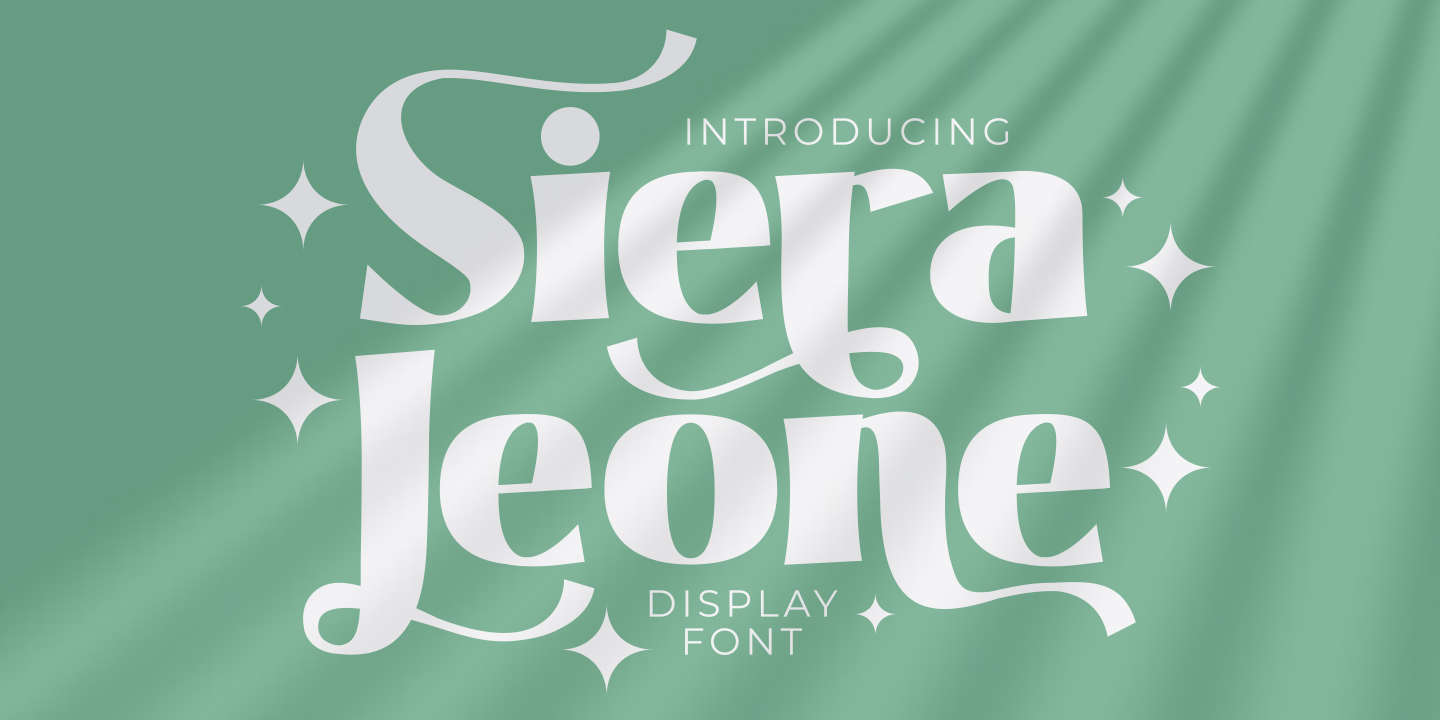
Siera Leone Font is excellent for African cultural celebrations, heritage tourism marketing, traditional craft promotions, cultural diversity campaigns, authentic African cuisine branding, community development communications, cultural exchange programs, African art exhibitions, diaspora community events, and multicultural festival graphics.
What makes Siera Leone Font exciting is its African cultural authenticity that perfectly captures the vibrant heritage and community spirit found in West African traditions and cultural celebrations. This typeface features distinctive letterforms with African-inspired proportions and cultural details that evoke the rich storytelling traditions and communal strength of African heritage. The font's vibrant personality and cultural authenticity make it ideal for cultural brands seeking to convey heritage pride, community unity, and the rich traditions that come from authentic African cultural expression and diaspora community connections.
Siera Leone Font family includes vibrant weight variations and cultural alternatives that enhance its African appeal while providing design flexibility for cultural and community applications. The font features cultural ligatures, African-themed ornaments, and heritage character variations that create authentic African atmosphere for cultural and community branding.
Cultural organizations and heritage community groups consistently choose Siera Leone Font Free Download for projects requiring authentic African appeal and cultural credibility. The font's vibrant character excels in applications targeting African communities, cultural enthusiasts, and heritage supporters who appreciate genuine African traditions and cultural celebration. Whether you're designing for cultural festivals, African heritage projects, or community organizations, this authentic typeface delivers the African cultural authenticity and heritage pride that resonates with audiences seeking genuine cultural connection and the community strength that defines African heritage and diaspora cultural excellence.